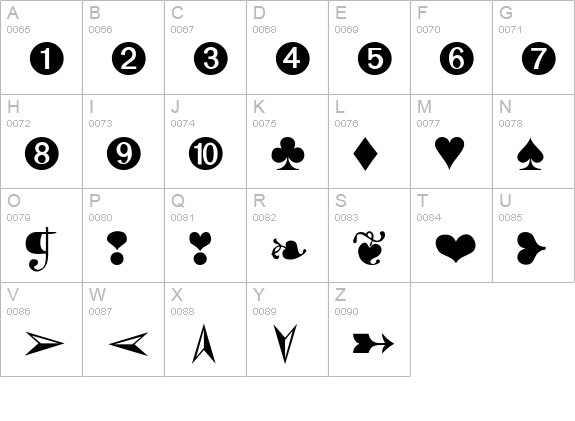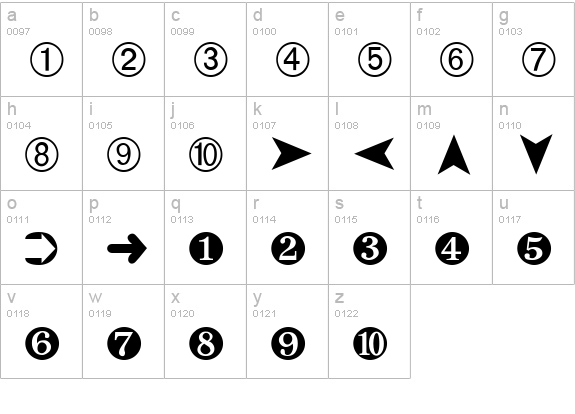
Dingthing 2 Normal is the standard, neutral variant in the Dingthing typeface family \xE2\x80\x94 well suited to general body text, paragraphs, and standard typographic work.
Dingthing 2 Normal font is a versatile and stylish typeface that is perfect for adding a touch of creativity to your designs. With its clean lines and contemporary look, this font is suitable for a wide range of projects, from logos to posters to branding materials. The Dingthing 2 Normal font is free to download at FontsMarket.com, making it accessible to designers and creatives looking to elevate their work with a modern twist. Add a unique flair to your projects with Dingthing 2 Normal font today!